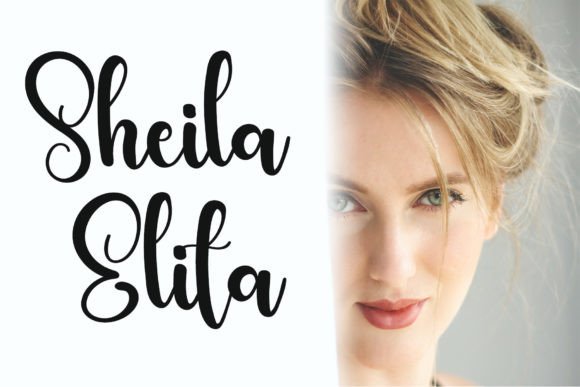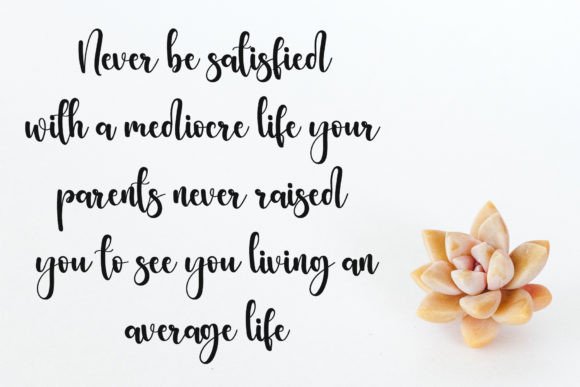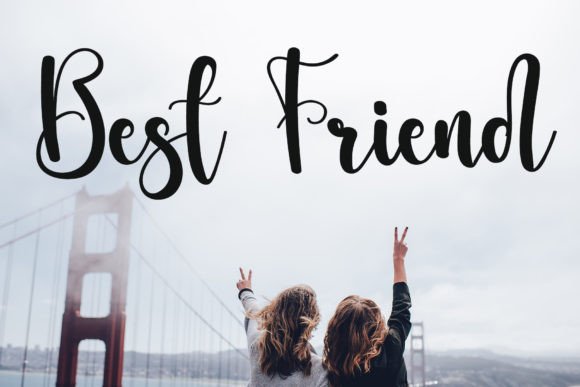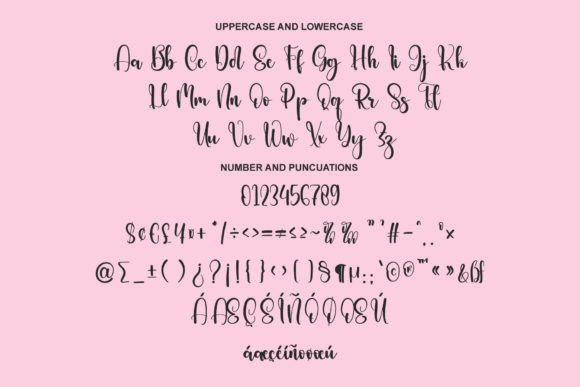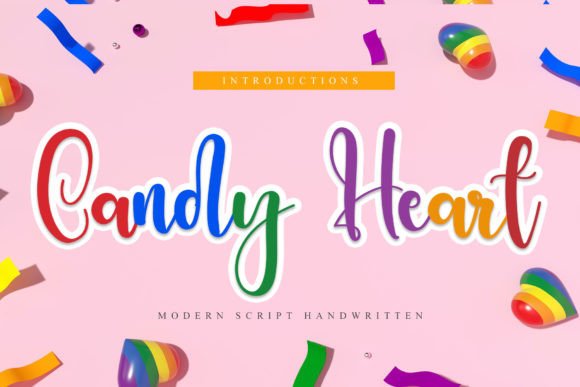
Candy Heart Font: The Sweetest Addition to Your Design Collection
Are you on the hunt for a font that exudes elegance, sophistication, and a touch of whimsy? Look no further than the Candy Heart Font! This delicate, elegant, and flowing handwritten font is perfect for designers and crafters looking to add a romantic touch to their projects. With its incredibly distinct and timeless style, Candy Heart Font is sure to capture the hearts of design enthusiasts and audiences alike.
What Makes Candy Heart Font So Special?
Candy Heart Font is more than just a pretty face – it’s a versatile and highly usable font that can elevate a wide range of design projects. From wedding invitations and party decor to branding and packaging, this font’s flowing script and delicate lines make it perfect for creating beautiful, eye-catching designs.
One of the standout features of Candy Heart Font is its unique blend of classic elegance and modern flair. The font’s intricate lettering and subtle flourishes evoke a sense of nostalgia and romance, while its clean lines and simple shapes keep it feeling fresh and contemporary.
Whether you’re a professional designer or a crafty DIY enthusiast, Candy Heart Font is an excellent addition to your toolkit. Here are just a few ways you can use this gorgeous font to take your designs to the next level:
• Wedding and Event Design: Use Candy Heart Font to create stunning wedding invitations, party decor, and other event materials that will leave a lasting impression on your guests.
• Branding and Packaging: Add a touch of elegance and sophistication to your brand’s packaging and marketing materials with Candy Heart Font.
• Stationery and Paper Crafts: Create beautiful stationery, greeting cards, and other paper crafts with Candy Heart Font.
• Digital Design: Use Candy Heart Font to add a romantic touch to your digital designs, from social media graphics to website headers.
Why You’ll Love Working with Candy Heart Font
So why should you choose Candy Heart Font for your next design project? Here are just a few reasons why designers and crafters are falling in love with this gorgeous font:
• Unique and Distinctive: Candy Heart Font has a one-of-a-kind style that’s sure to set your designs apart from the crowd.
• Elegant and Sophisticated: This font’s flowing script and delicate lines make it perfect for creating elegant, high-end designs.
• Highly Versatile: Use Candy Heart Font for a wide range of design projects, from wedding design to branding and packaging.
Get Ready to Fall in Love with Candy Heart Font
If you’re looking for a font that will add a touch of romance and elegance to your designs, look no further than Candy Heart Font. With its delicate lines, flowing script, and timeless style, this font is sure to capture your heart and inspire your creativity.
Candy Heart Font: Key Features and Benefits
Feature Benefit
Delicate, elegant lines Adds a touch of romance and sophistication to designs
Flowing script Creates a sense of movement and elegance
Timeless style Ensures designs remain relevant and stylish for years to come
Highly versatile Suitable for a wide range of design projects
Font Name Candy Heart Font
Author Bintang Studio
In conclusion, Candy Heart Font is a beautiful, elegant, and highly versatile font that’s perfect for designers and crafters looking to add a touch of romance and sophistication to their projects. With its unique blend of classic elegance and modern flair, this font is sure to capture the hearts of design enthusiasts and audiences alike.